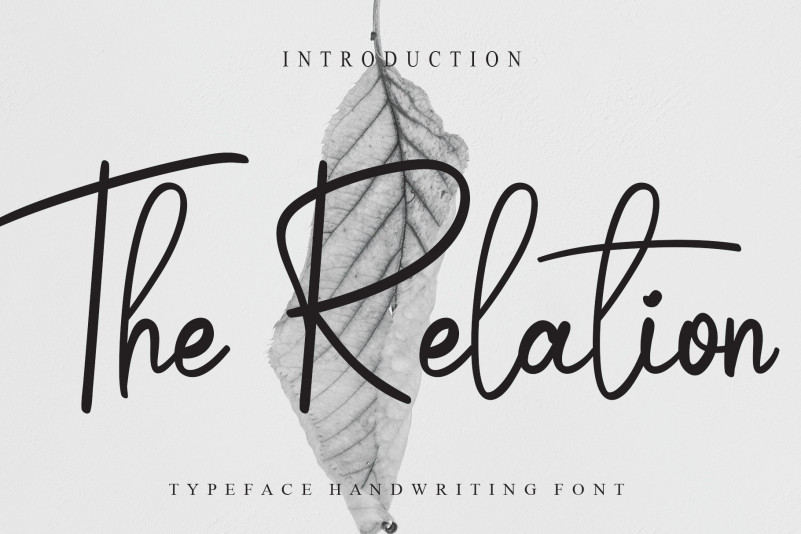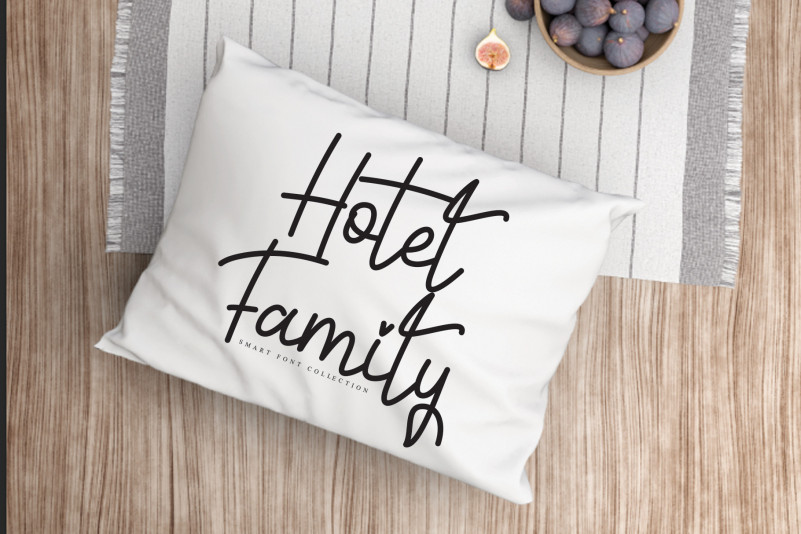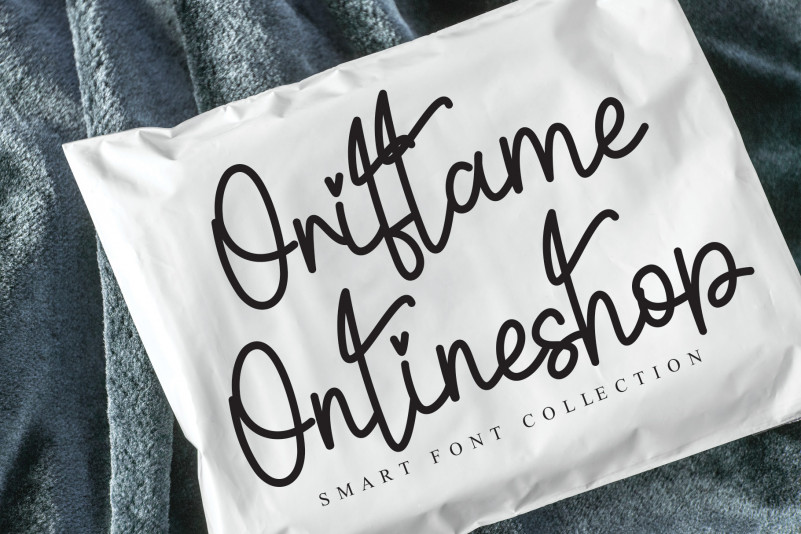
Attachment Signature Script Font
Introducing Attachment Signature Script Font – The latest style letters are perfect for wall displays, wedding invitations, social media post logos, advertisements, product packaging, product designs, labels, photography, watermarks, invitations, stationery,and any project that requires taste handwriting.